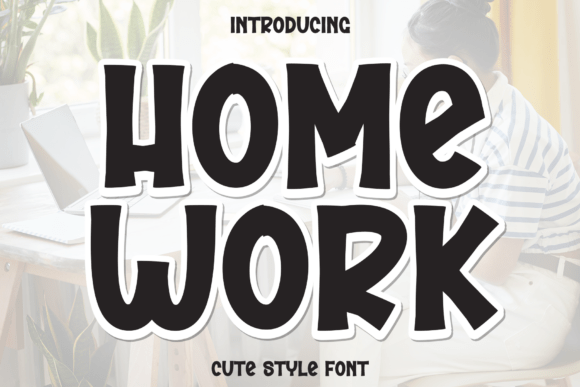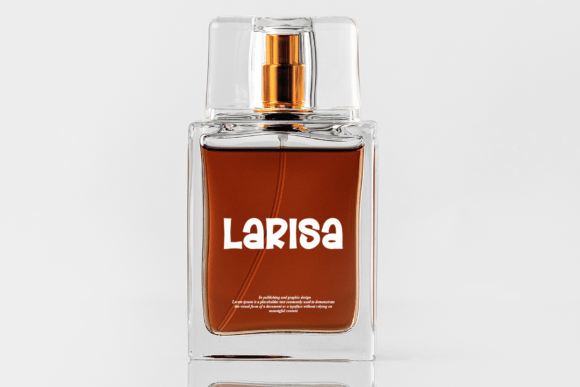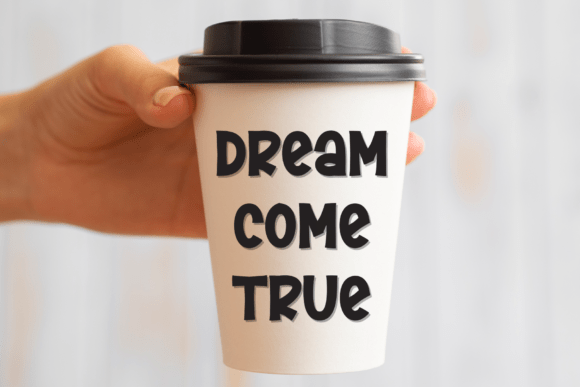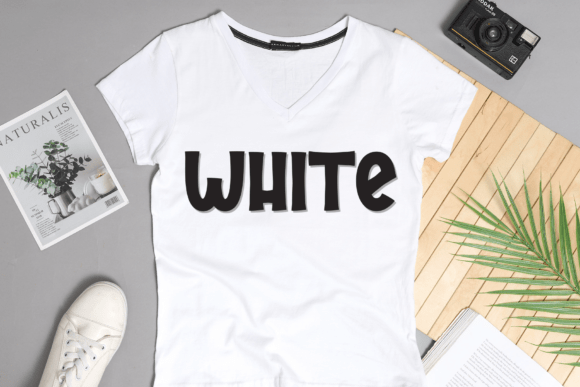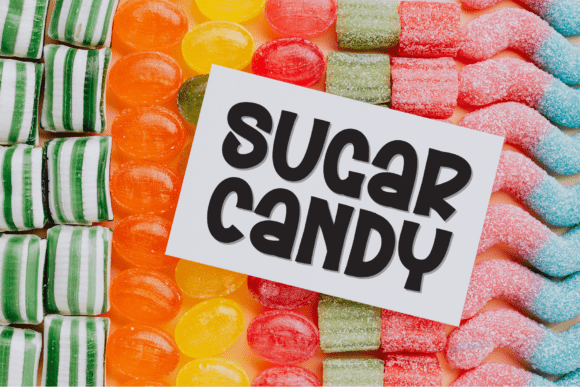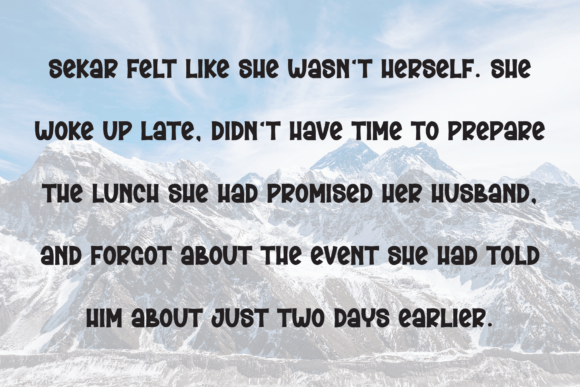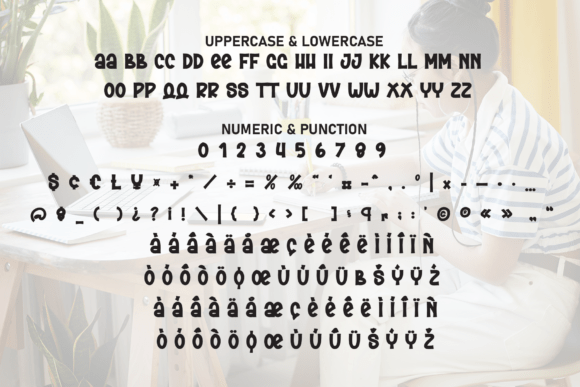
Unleash Your Creativity with the Home Work Font
You’ve just spent hours brainstorming the perfect design concept, and it’s finally coming together. The colors are vibrant, the layout is clean, and the typography is on point. But then, you hit a roadblock – the font just doesn’t feel right. That’s where the Home Work Font comes in – a special collection of creative products designed to give your projects an extra touch of personality.
Whether you’re a seasoned designer or just starting out, the Home Work Font is a valuable tool in your arsenal. With its versatility and ease of use, you can incorporate it into any project that requires a unique touch – from wall displays and wedding invitations to social media logos and product packaging. And with its compatibility with popular design software, you can rest assured that your font will look its best.
Home Work Font Key Features
- Font Family: Home Work Font is a unique sans-serif font with a friendly and approachable feel. It’s ideal for use in body text and headlines.
- Unique Characteristics: Home Work Font features a distinctive rounded edge on the letters, giving it a friendly and approachable feel. It also has a range of ligatures and contextual alternates that add to its unique character.
Home Work Font Review
As a designer, I’ve had the chance to experiment with various fonts, and Home Work Font is one of them. Here’s my honest review.
- ✨ Unique aesthetic: Home Work Font has a distinctive look that can add a touch of personality to your designs. Its combination of rounded and geometric elements creates a visually appealing contrast.
- ✨ Wide range of weights: With multiple weights available, you can easily find the perfect fit for your project, from light to bold.
- ✨ Smooth typography: The font’s design ensures a smooth reading experience, making it suitable for body text as well as headlines.
- ⚠️ Limited language support: Home Work Font might not be suitable for projects requiring extensive language support, as it’s primarily designed for Latin-based languages.
- ⚠️ Limited character set: Although the font has a decent range of characters, it might not include all the special characters you need for certain projects.
- ⚠️ Not ideal for tiny text: Due to its design, Home Work Font might not be the best choice for text that’s too small, as it can become difficult to read.
Overall, Home Work Font is a great choice for projects that require a unique, modern look. However, it’s essential to consider its limitations before making a final decision.
Tips for Getting the Most Out of “Home Work Font”
Use “Home Work Font” to create a welcoming and approachable atmosphere in your designs.
Pair it with a clean and simple background to make it stand out.
“Home Work Font” is ideal for:
- Personal project proposals
- Home office or workspace branding
- Education and learning materials